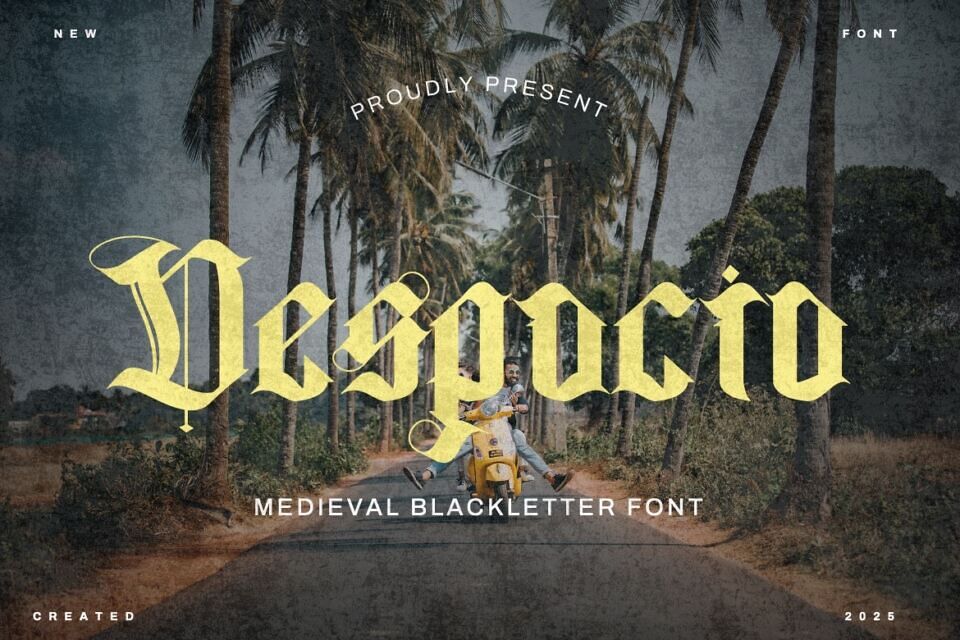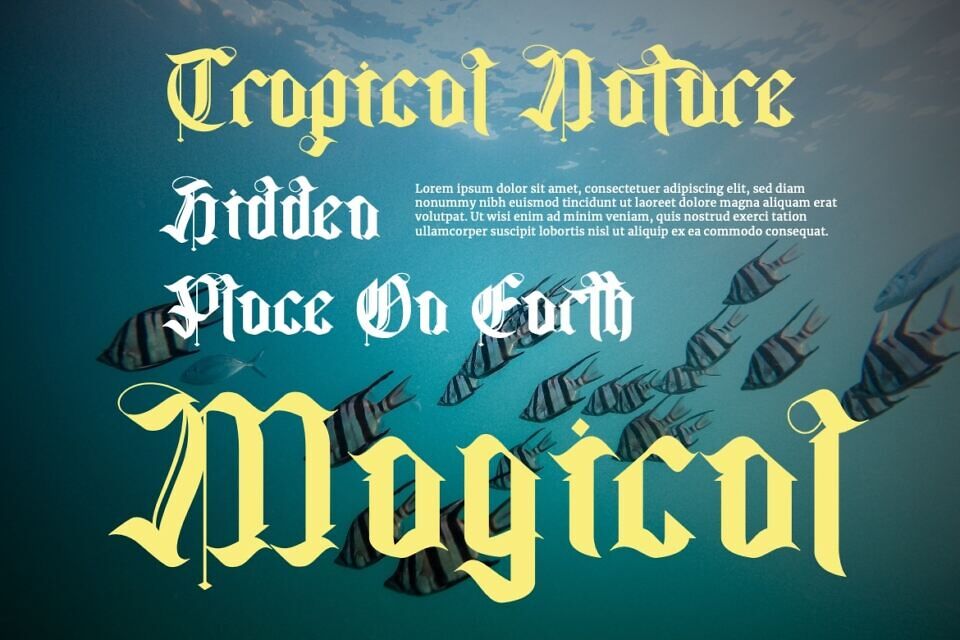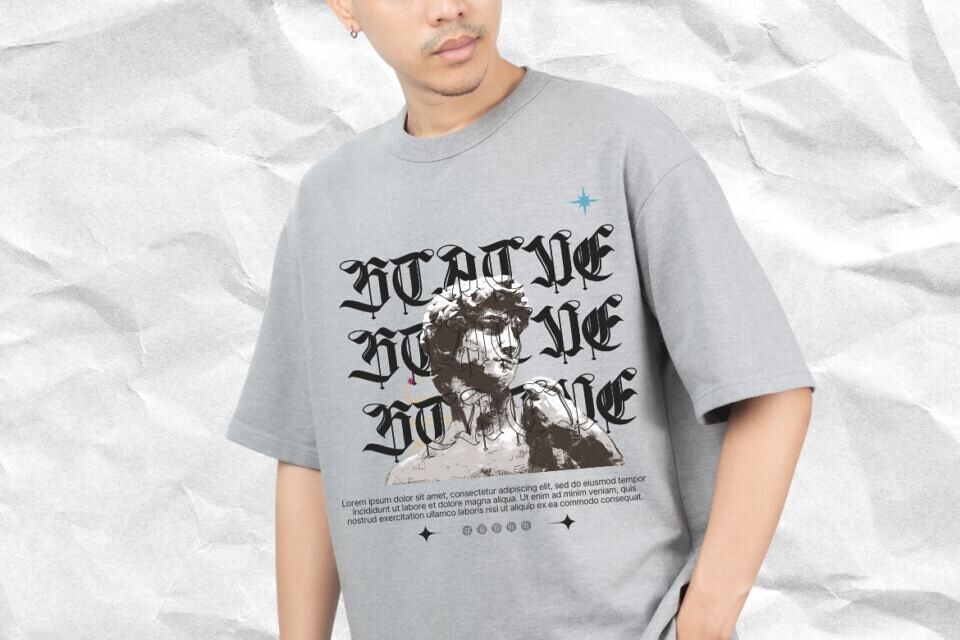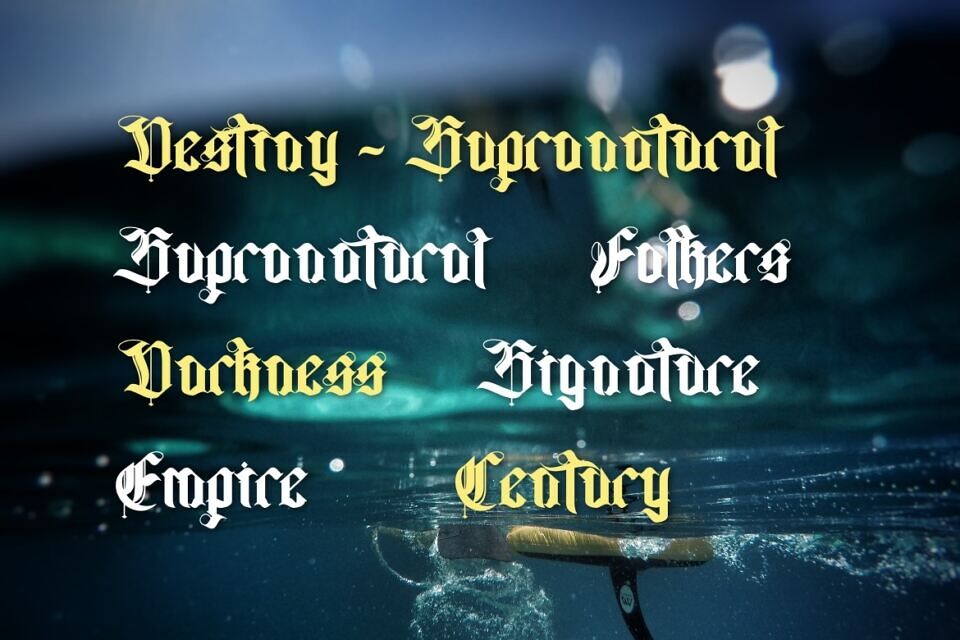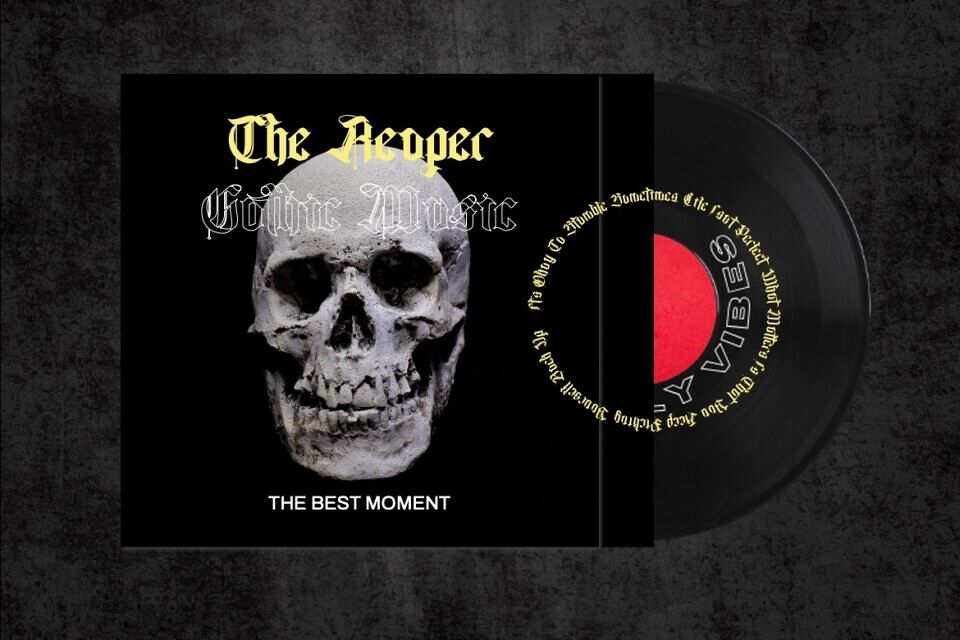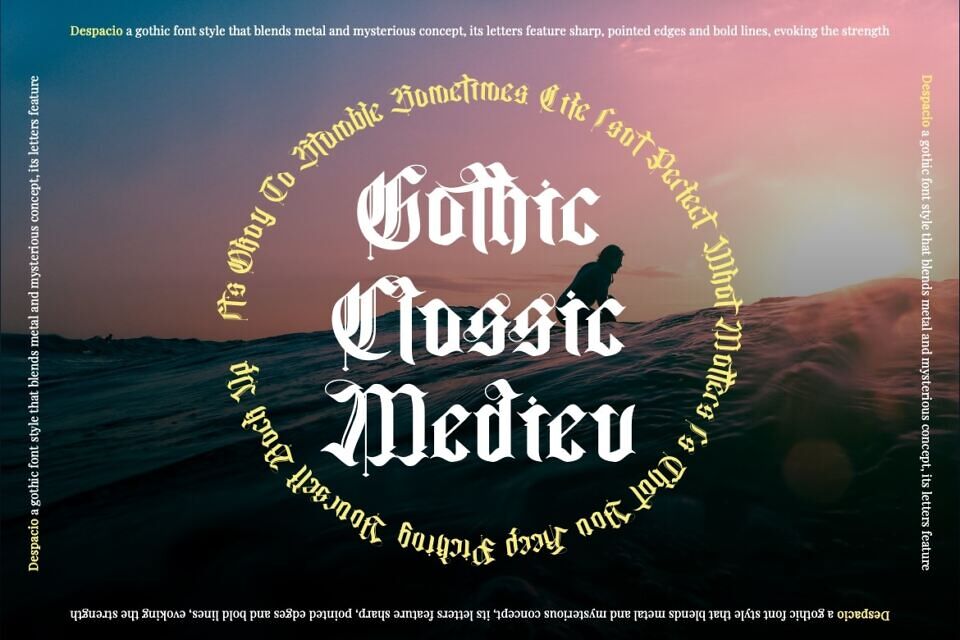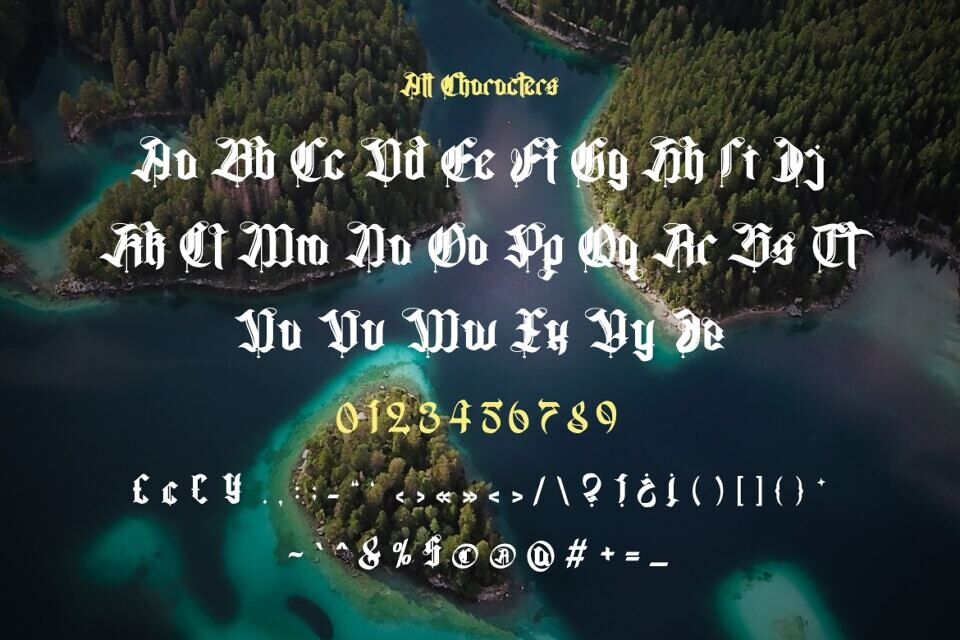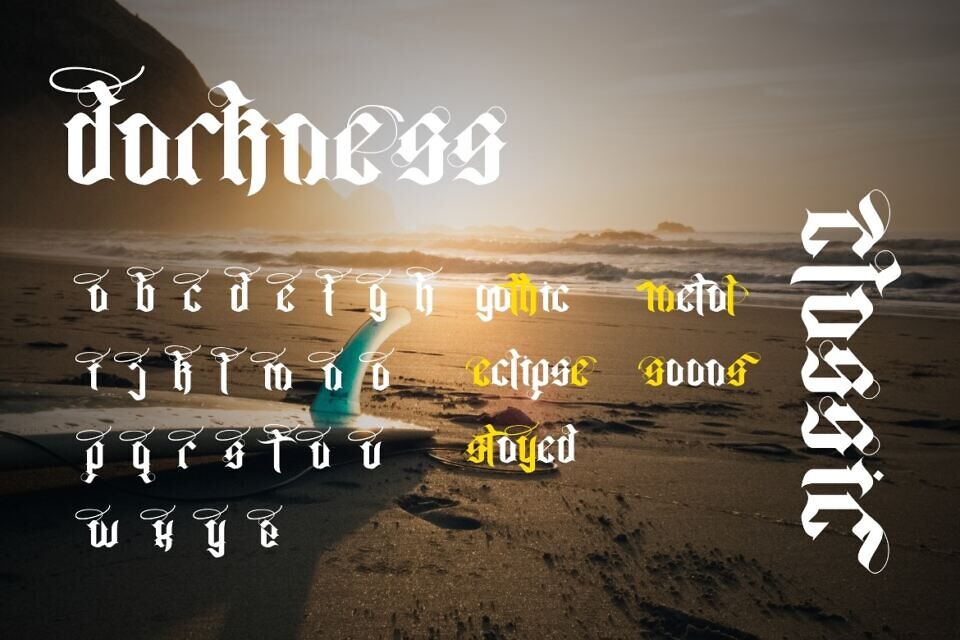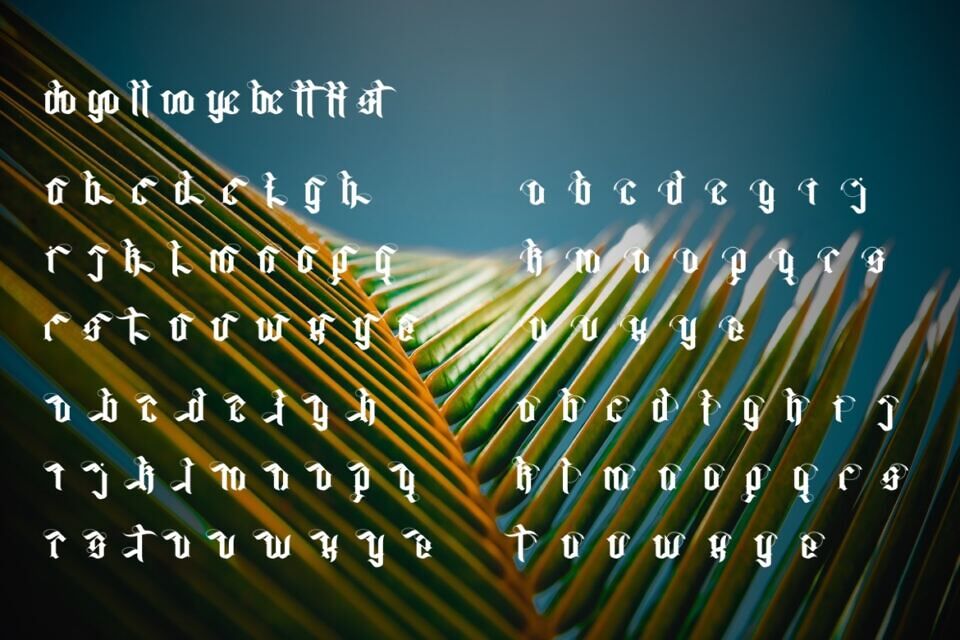
Despacio is a Medieval bold blackletter fraktur display font by Dhabee Studio that merges traditional Gothic aesthetics with modern impact.
Its intricate letterforms feature sharp angles, dramatic strokes, and striking contrasts, embodying strength, authority, and historical charm. The bold weight enhances its commanding presence, making it ideal for designs that demand attention and sophistication.